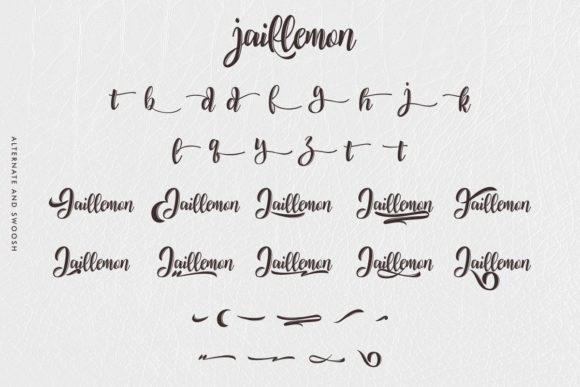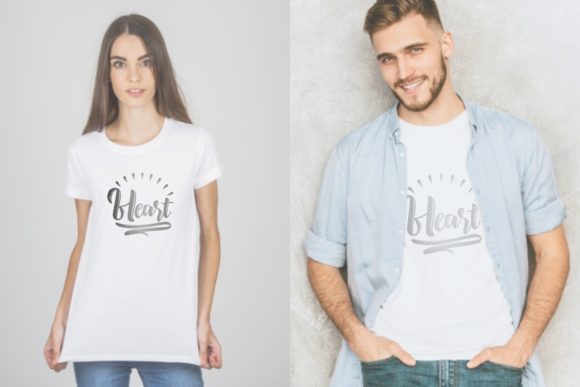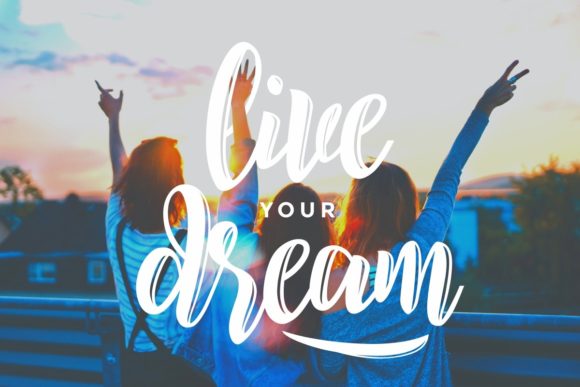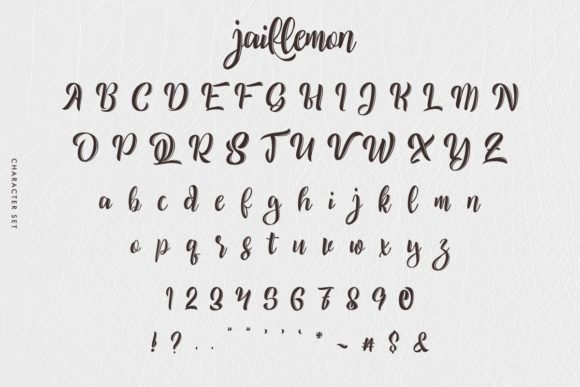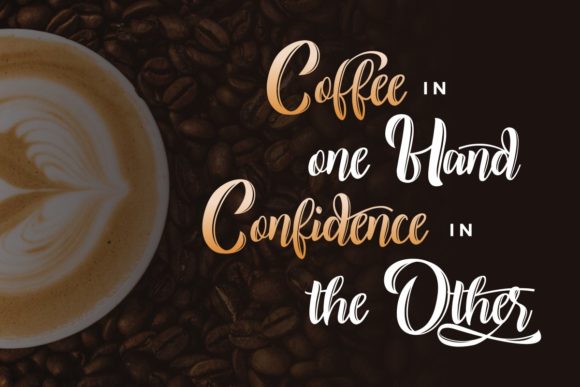
Jaillemon Font
About Jaillemon Font
Jaillemon is a flowing handwritten font, described by an elegant touch, perfect for your favorite projects. Fall in love with its incredibly distinct and timeless style and use it to create spectacular designs!